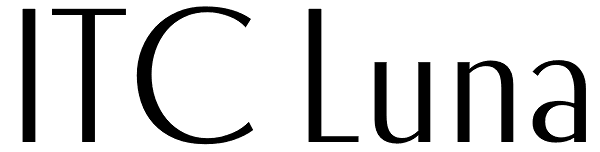
ITC Luna
ITC Luna is the work of Japanese designer Akira Kobayashi. He turned to the designs of the 1930s for his inspiration for both ITC Luna and ITC Silvermoon. “Luna is designed to fill the gap between a pure Art Deco display face and an ordinary text...